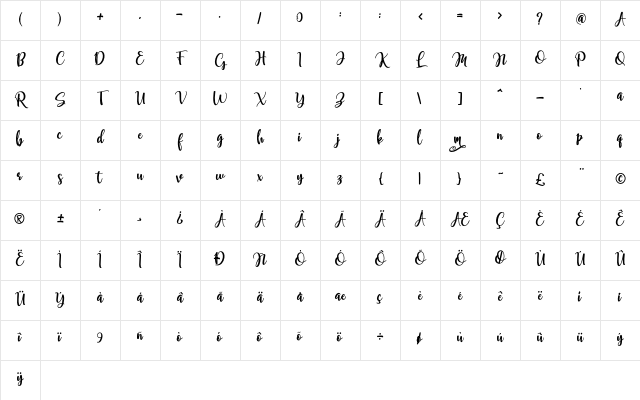
Samellya Personal Use Regular
Foundry: Mas Anis
Designer: Mas Anis
Design Context for Samellya Personal Use
Samellya Personal Use is a composed and adaptable typeface that performs quietly and consistently across a wide range of design contexts.